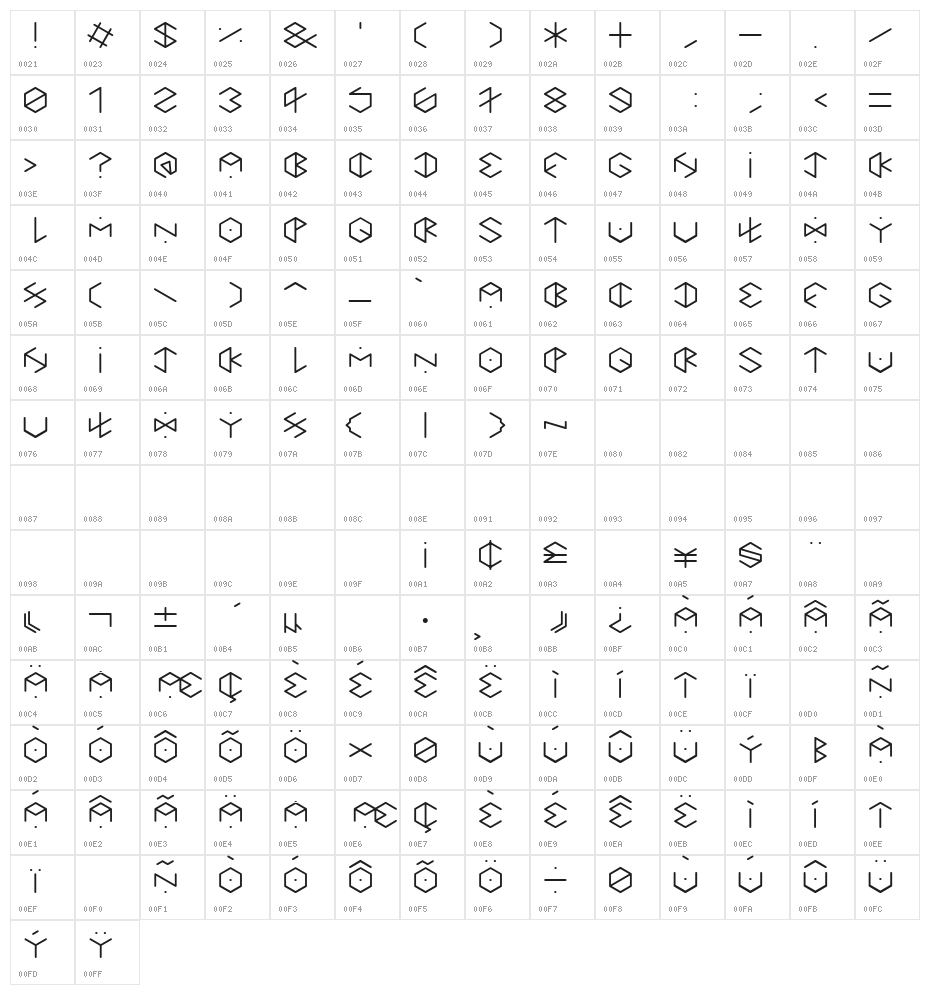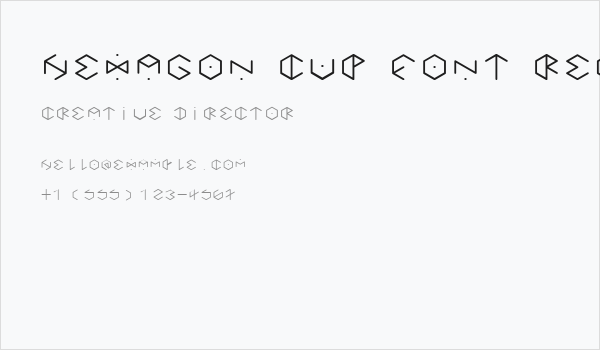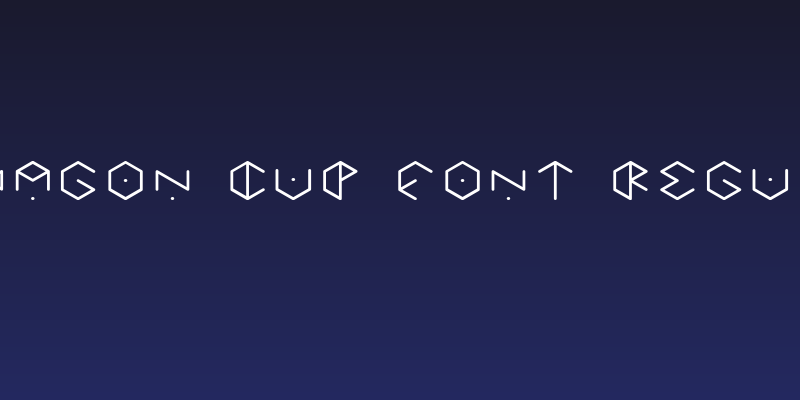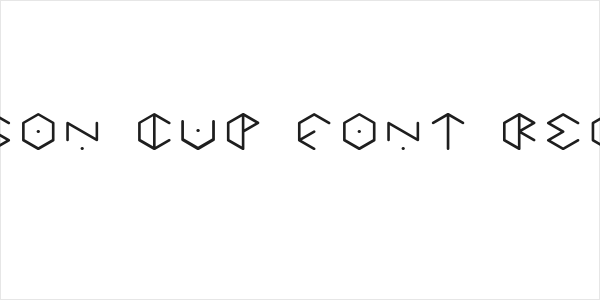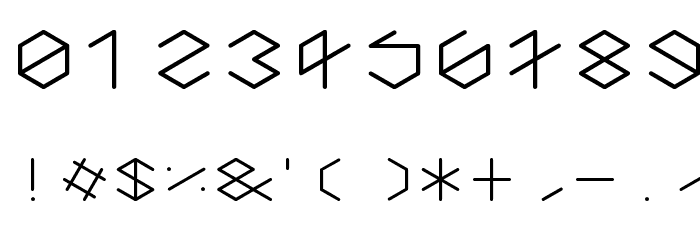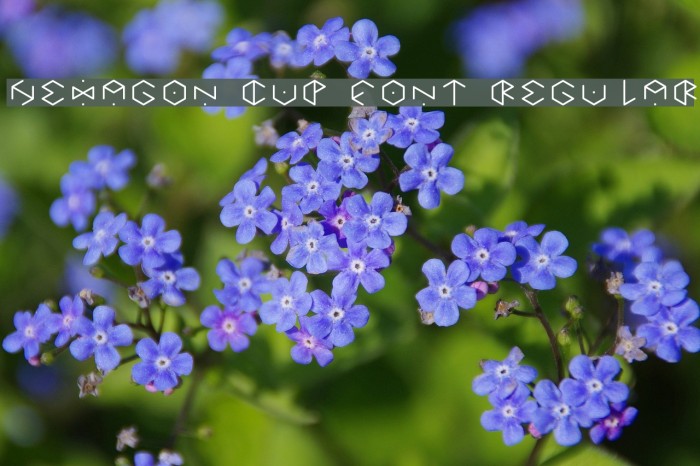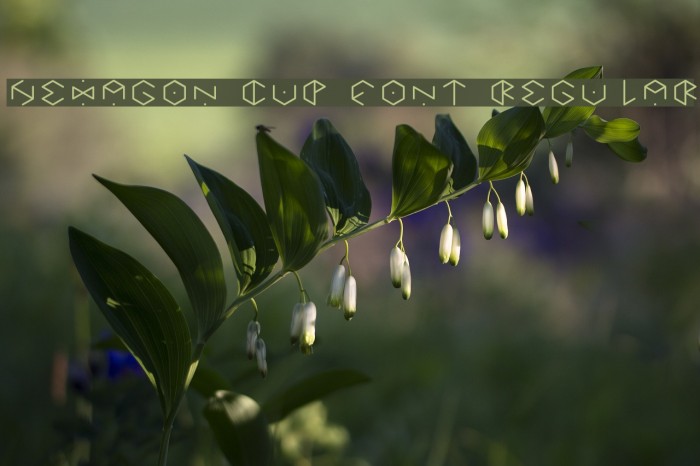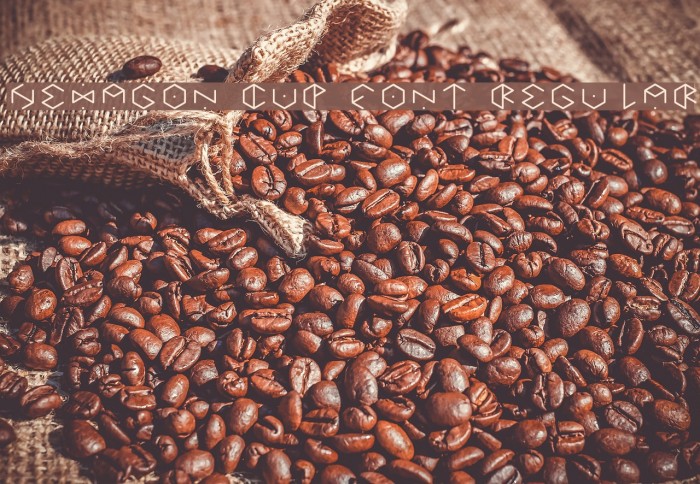
HEXAGON cup font Regular Font
HEXAGON cup font Regular Description
This font features a geometric and angular design, characterized by its hexagonal shapes and sharp edges. The letters are constructed with straight lines and angles, creating a futuristic and technical appearance. Each character is distinct, with a consistent use of hexagonal motifs that give it a cohesive look. The font maintains a uniform stroke width throughout, contributing to its modern and clean aesthetic. The numerals and special characters follow the same design principles, ensuring a harmonious visual style across all elements. This font is highly stylized, making it ideal for projects that require a unique and eye-catching typeface.
| Proposed Projects | Ideal for technology branding, sci-fi themed designs, video game interfaces, and modern logos. |